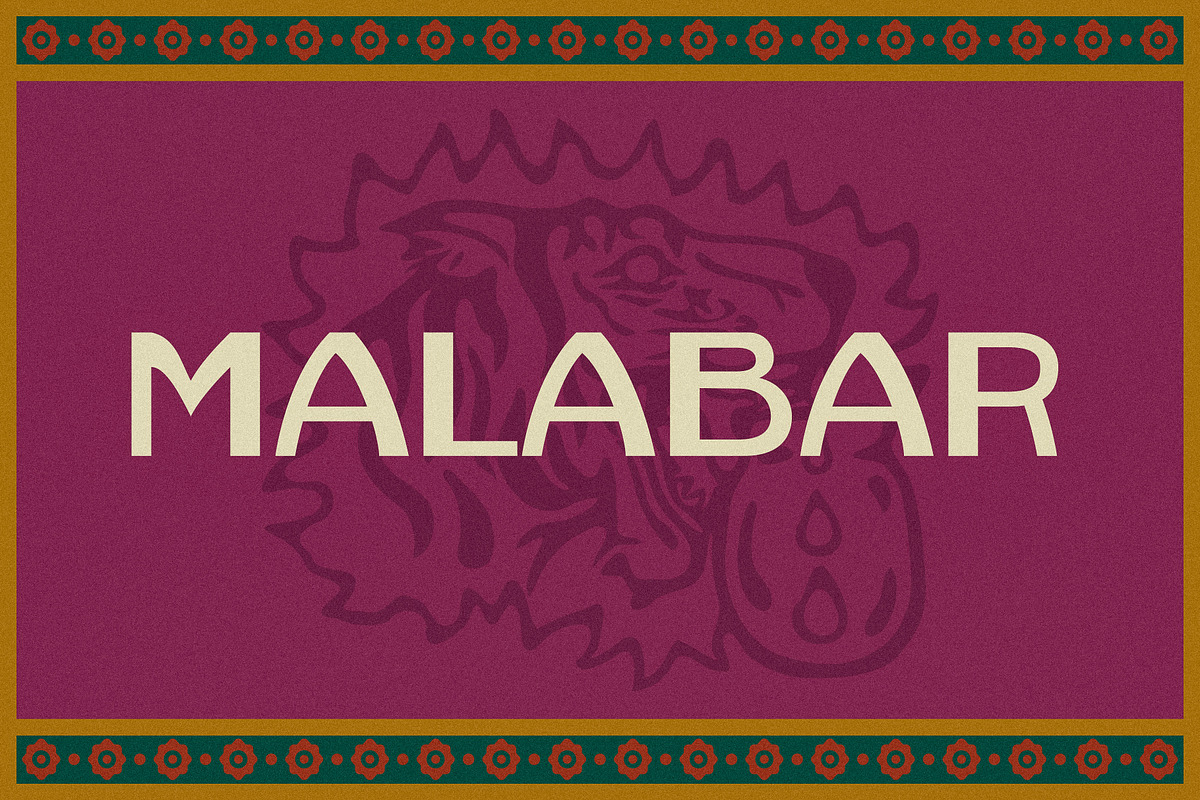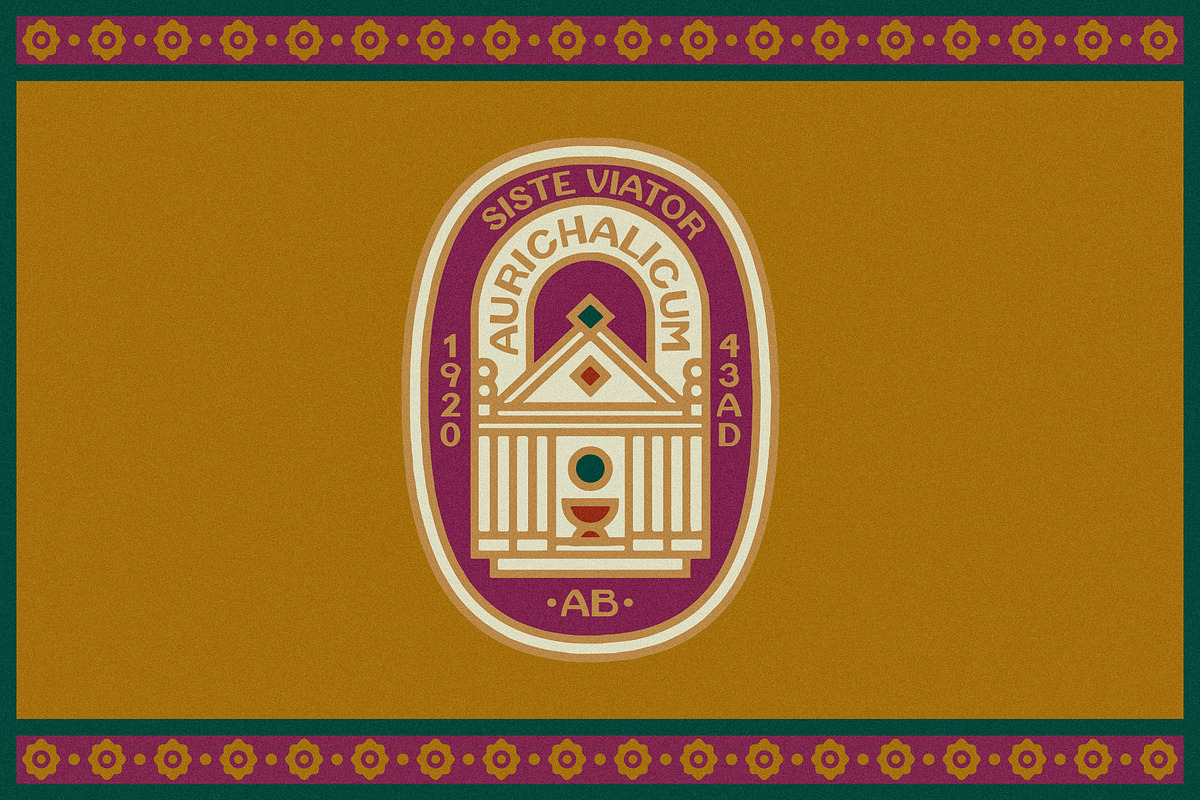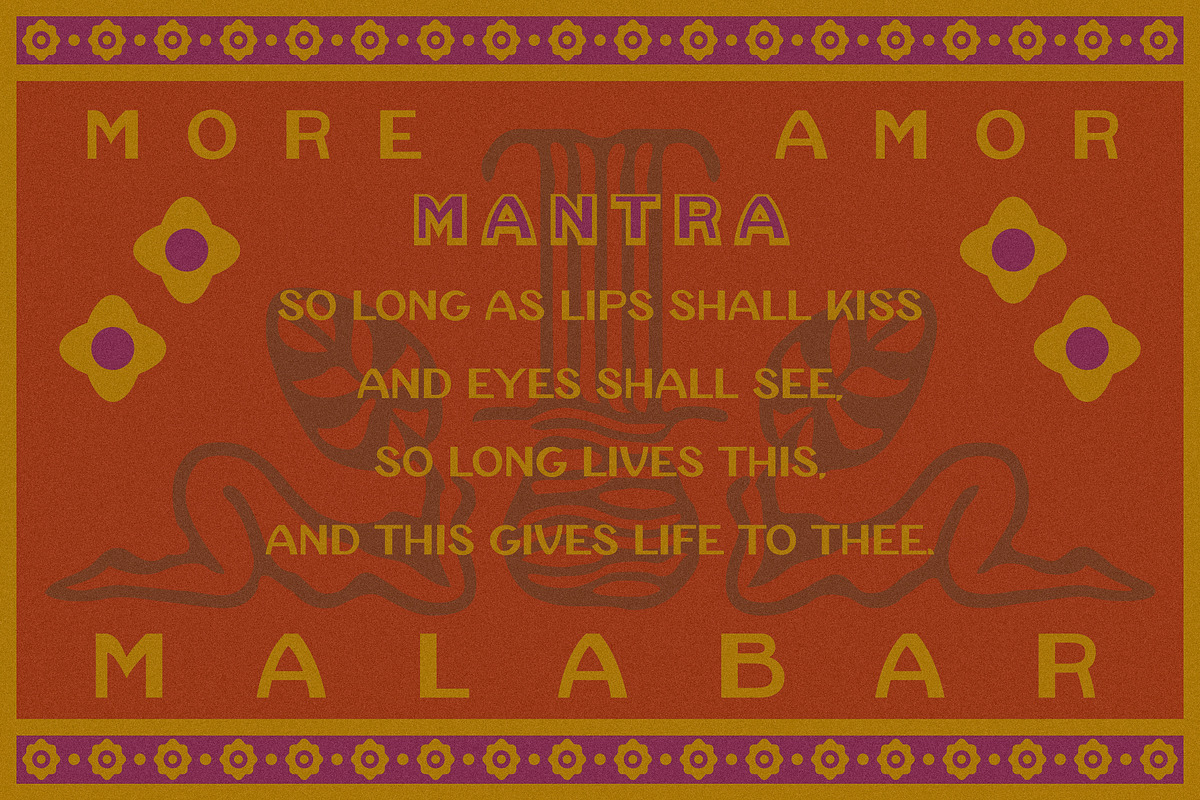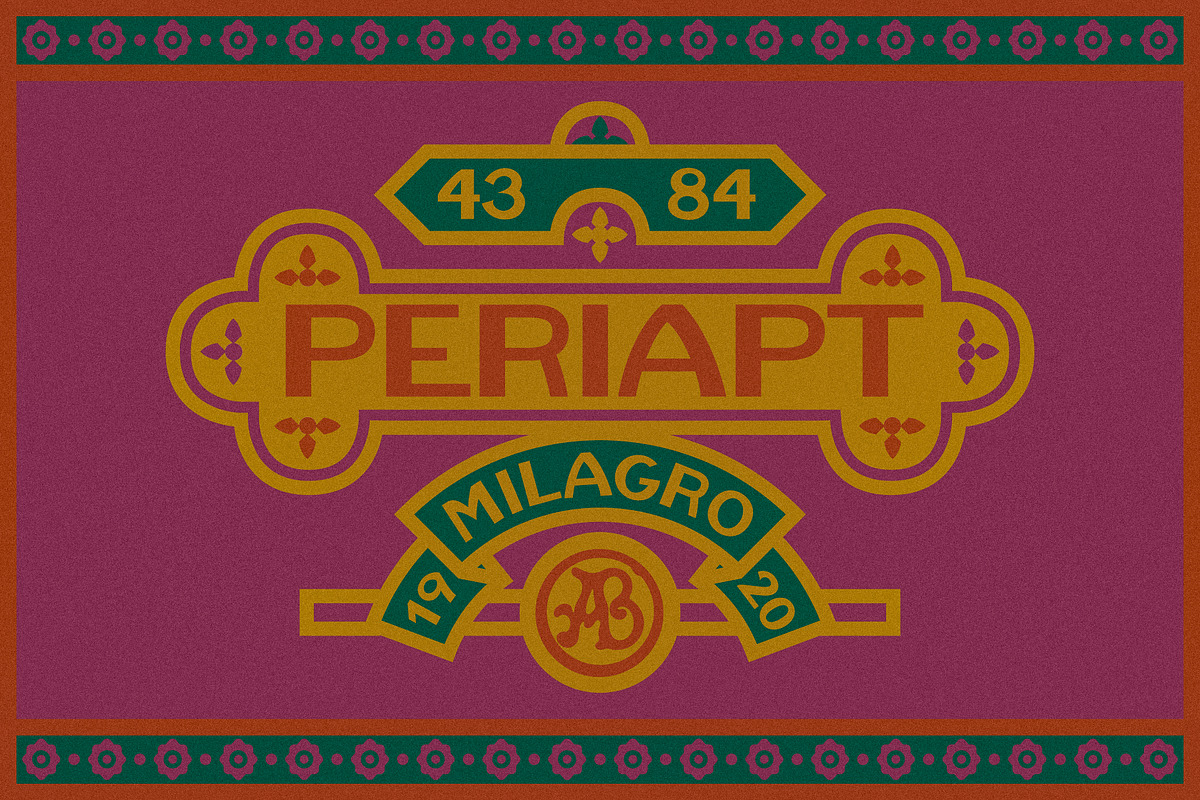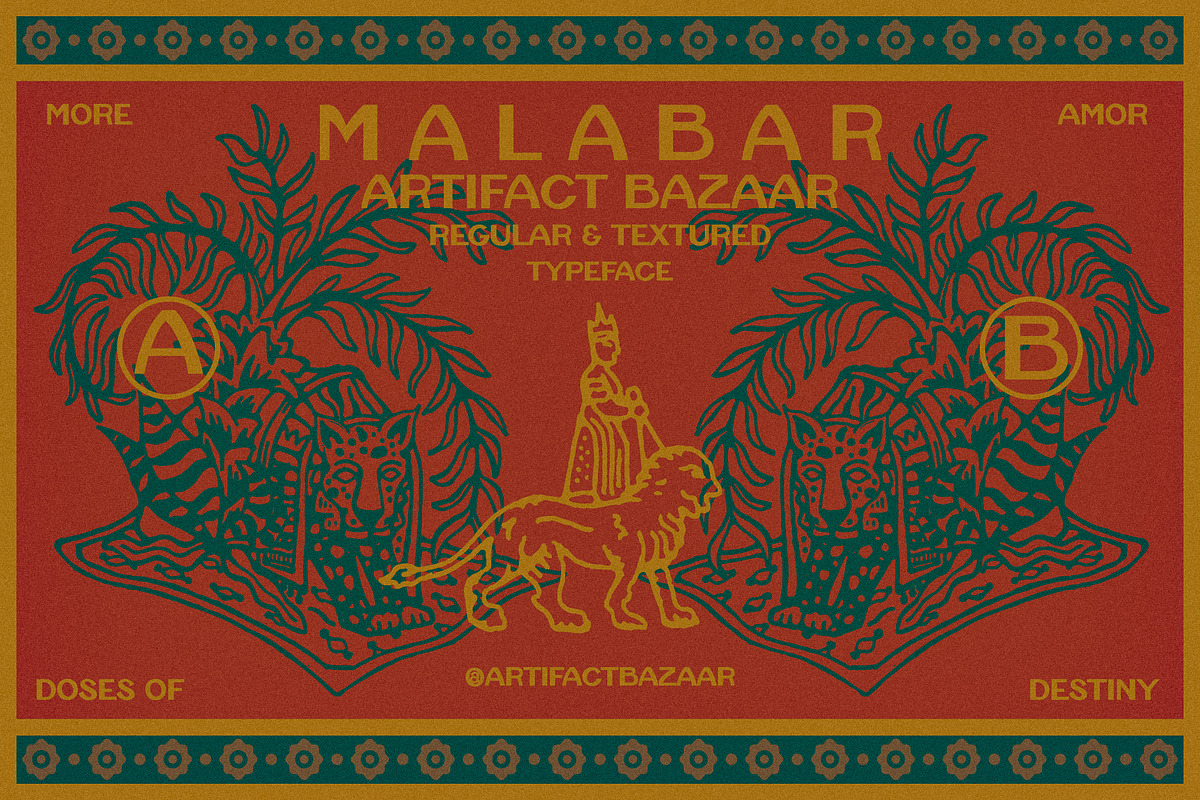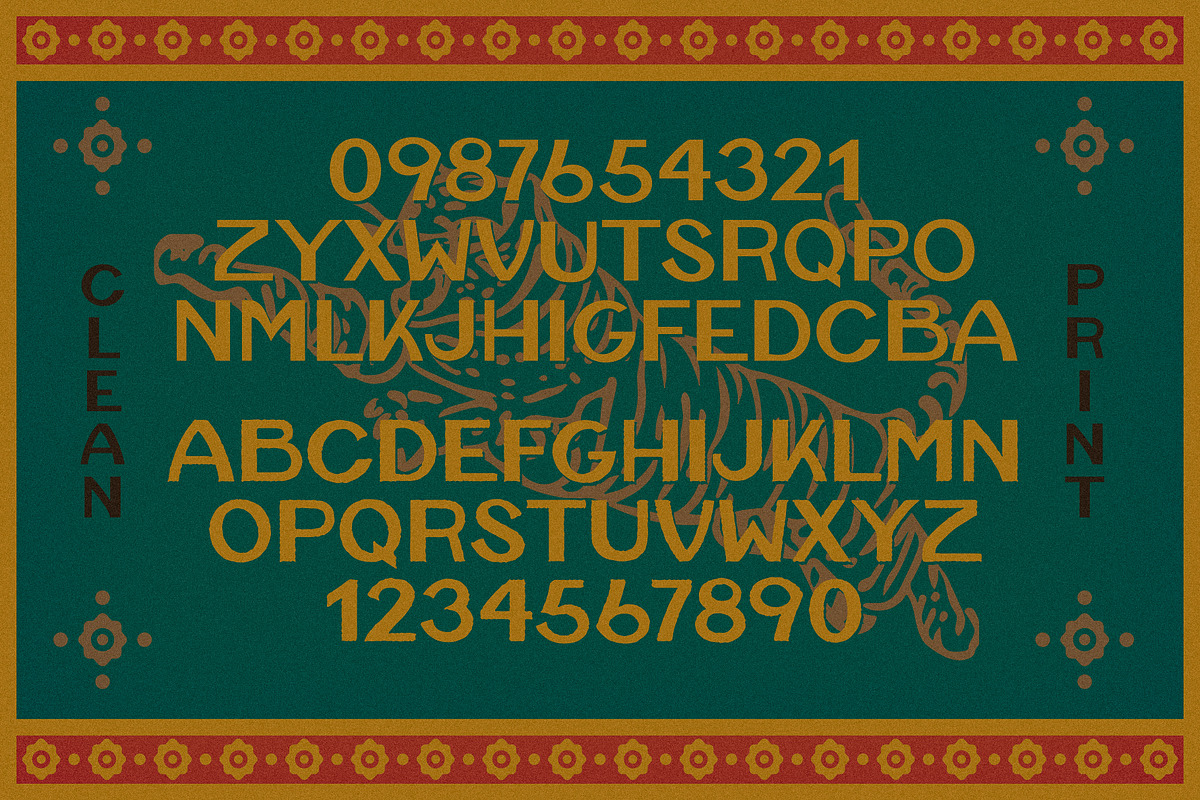
Malabar | Quirky Esoteric Sans
Don’t tell the others, but this is our personal favorite. A Season 1 font, MALABAR is a meticulously skewed, multi-faceted diamond in the rough just waiting for you to give it your own special polish in your personal and client work. Named Malabar for its exotic, esoteric, ancient tea-trade nod to tradition, its particular unique spice, and its subtly quirky personality. Take it on a trip, and share what you make!